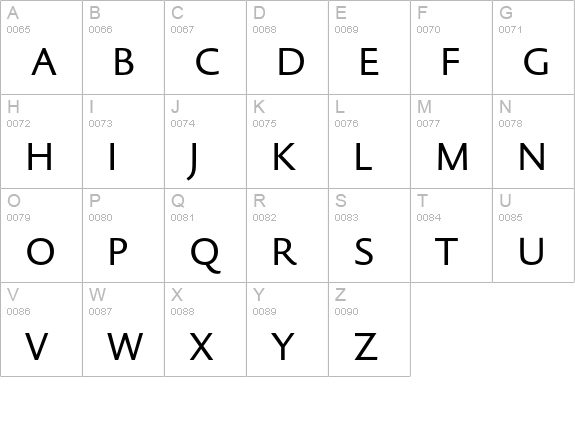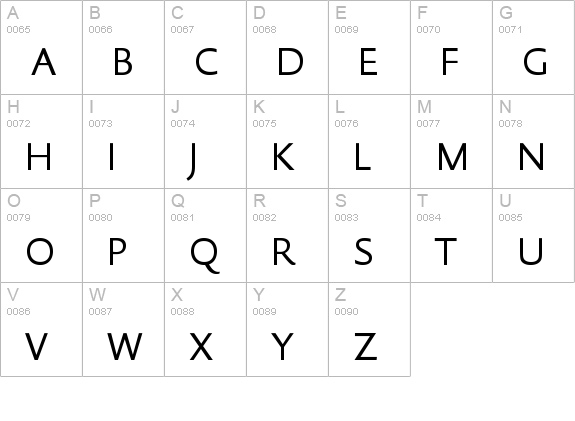
DTLHaarlemmerSansD Font Details
DTLHaarlemmerSansD is a modern and versatile sans serif font designed for a wide range of applications, from editorial design to branding and web design. With its clean lines and balanced proportions, this font exudes a sense of sophistication and elegance. Perfect for both body text and display purposes, DTLHaarlemmerSansD offers excellent legibility and readability in various sizes and weights. Its extensive character set includes uppercase and lowercase letters, numbers, punctuation marks, and special symbols, making it a versatile choice for all types of design projects. What sets DTLHaarlemmerSansD apart is its unique combination of classic elegance and contemporary flair, making it suitable for both traditional and modern design aesthetics. Whether you are creating a sleek corporate identity or a stylish editorial layout, this font is sure to elevate your designs to the next level. Best of all, DTLHaarlemmerSansD is available for free download at FontsMarket.com, allowing designers to access this high-quality typeface without any cost. Don't miss out on the opportunity to enhance your design projects with the timeless appeal of DTLHaarlemmerSansD. Download it today and take your typography game to new heights.